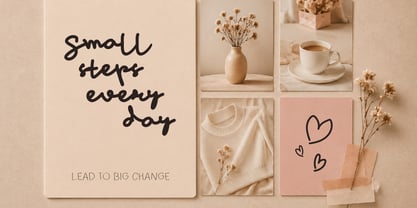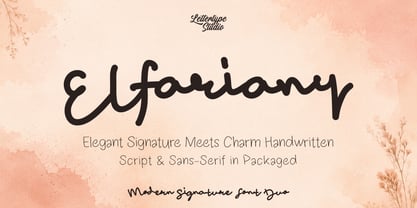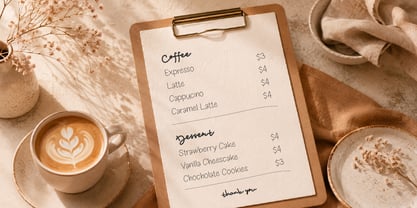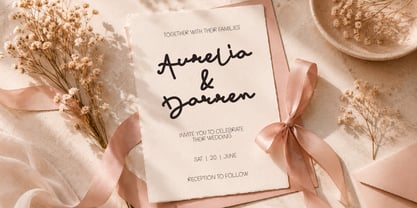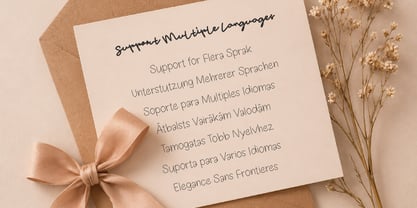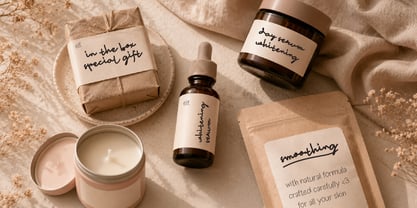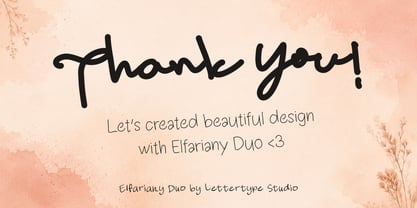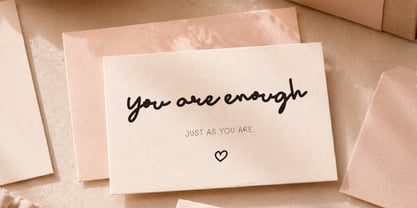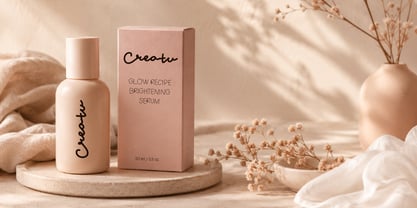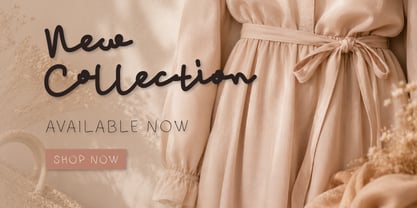
Elfariany Script
Die Schriftfamilie Elfariany Script wurde von Diki Pradipta Tri Atmojo entworfen und von Lettertype Studio veröffentlicht. Elfariany Script enthält 2 Stile und Familienpaketoptionen. Mehr über diese Familie
Elfariany is a modern handwritten font duo featuring an expressive signature script paired with a clean monoline handwritten sans. Designed to create warm, stylish, and personal branding visuals, this duo delivers the perfect balance between elegance and casual authenticity.
The script style flows naturally with bold handwritten energy, while the sans companion keeps layouts clean, friendly, and highly usable across branding, packaging, social media, wedding design, and lifestyle content. Together, they create a versatile font system for creators who want emotional yet modern typography.